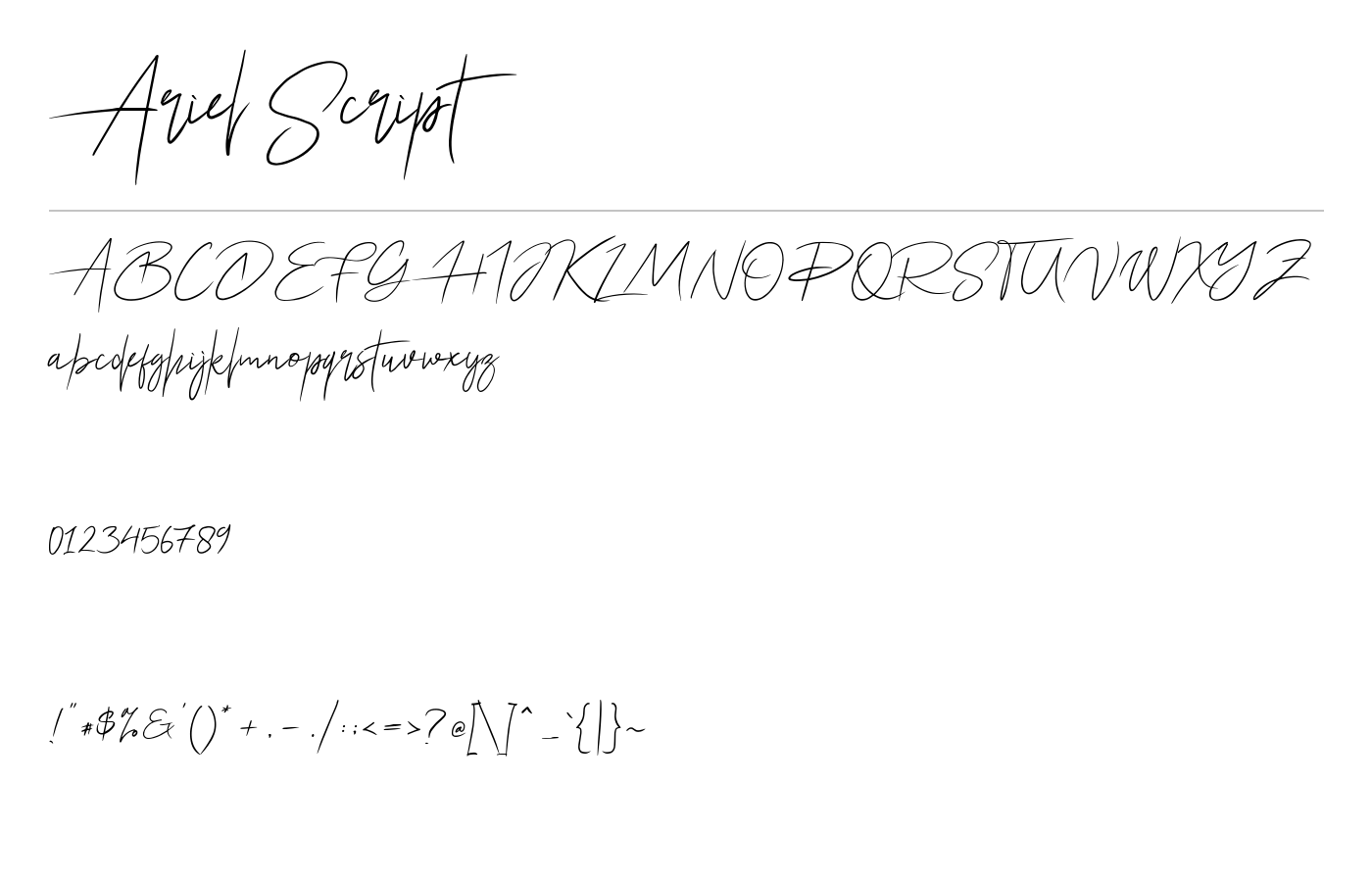
Ariel Script is an elegant, delicate script font with a hand-drawn, casual feel. Its thin, flowing strokes and tall, narrow letterforms create a sophisticated yet approachable style, perfect for adding a personal touch to invitations, branding, and editorial designs. This font works well in creative projects that need a refined, airy, and modern handwritten look.
Ariel Script Font
About Ariel Script Font
| Font family | Ariel Script Font |